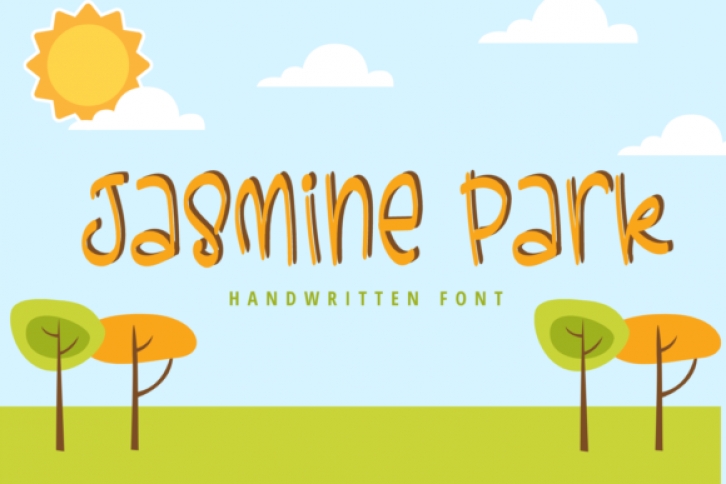
Jasmine Park is a cute handwritten font. This versatile script font has a wide range of applications ranging from greeting cards to kids’ crafts, and is guaranteed to add a sweet touch to your next design.